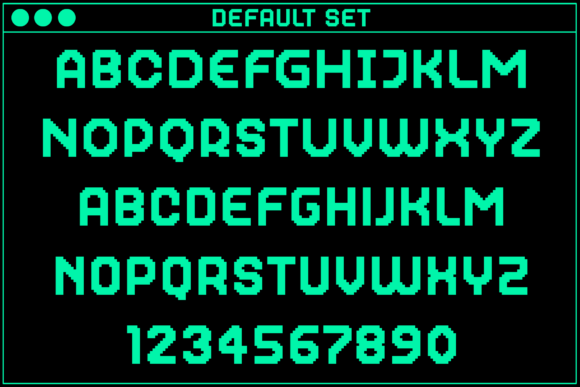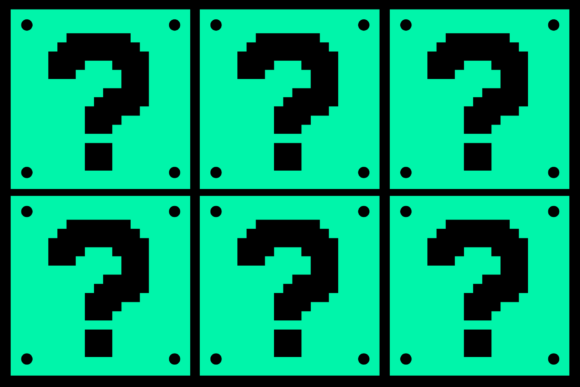
Gamer Regular Font
Gamer Regular is a cool, uniquely shaped, pixelated display font. Add a distorted and trendy touch to all of your designs with this unusual pixel font! Gamer Regular is PUA encoded which means you can access all glyphs and swashes with ease!